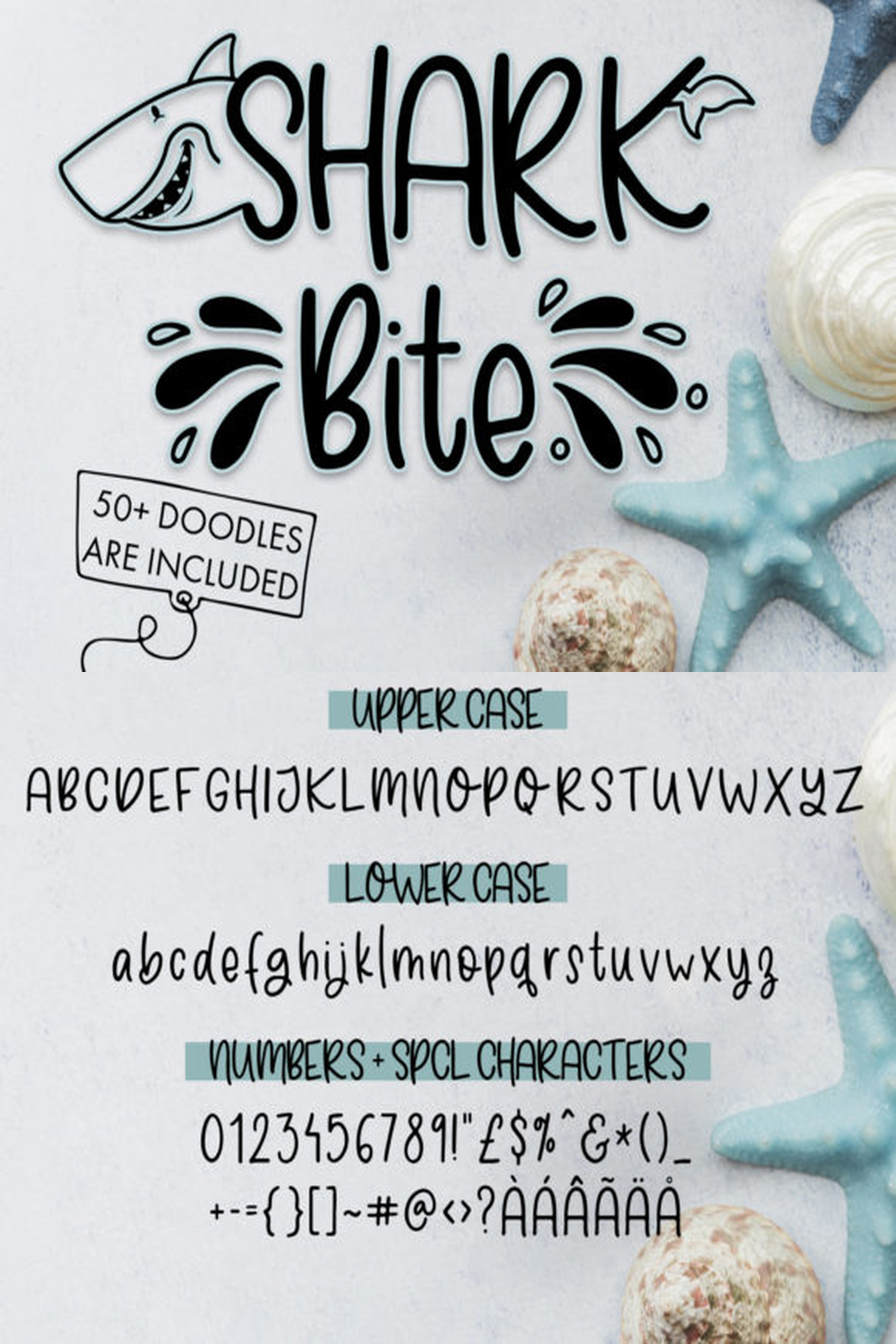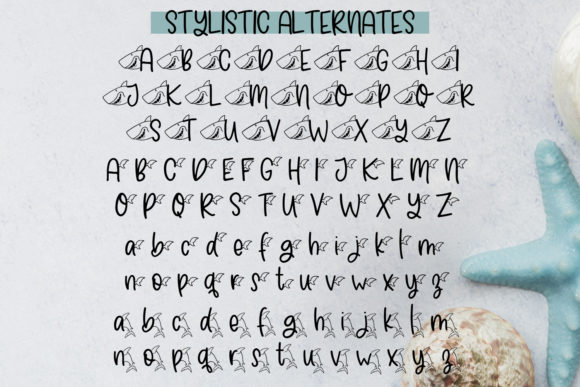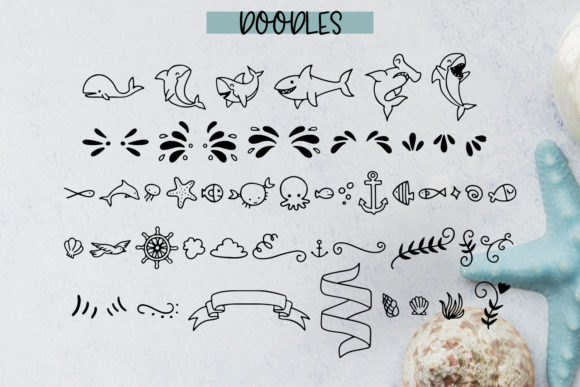
Shark Bite Font: A Playful Display Font + Doodle Font!
About the Shark Bite Font
We are excited to introduce Shark Bite Font, a must-have typeface for any serious designer. Watch out, shark lovers! Shark Bite is a nautical-themed display font with a splash of personality! Use it for any underwater-themed project, and get creative with the included doodle-font!